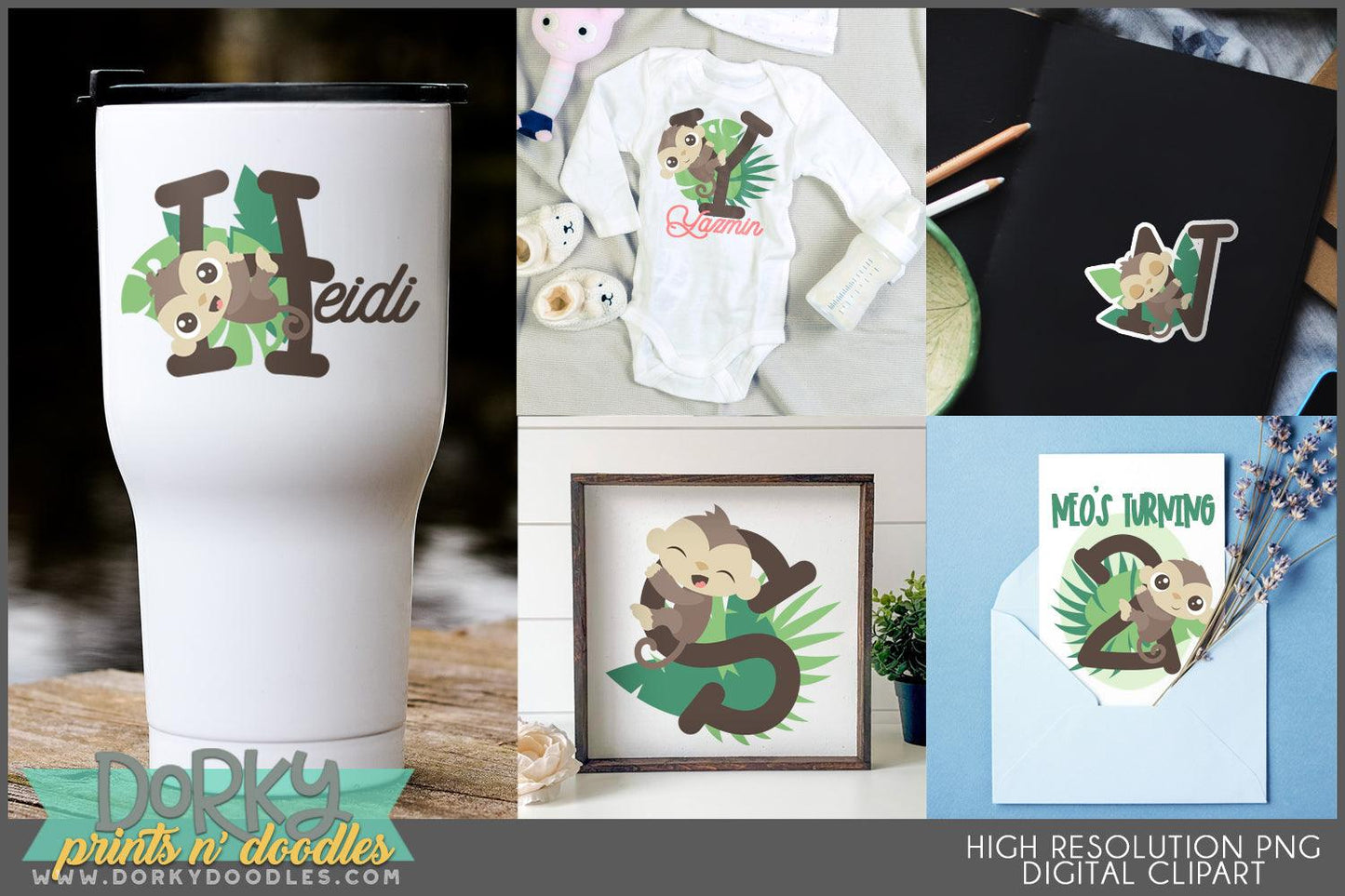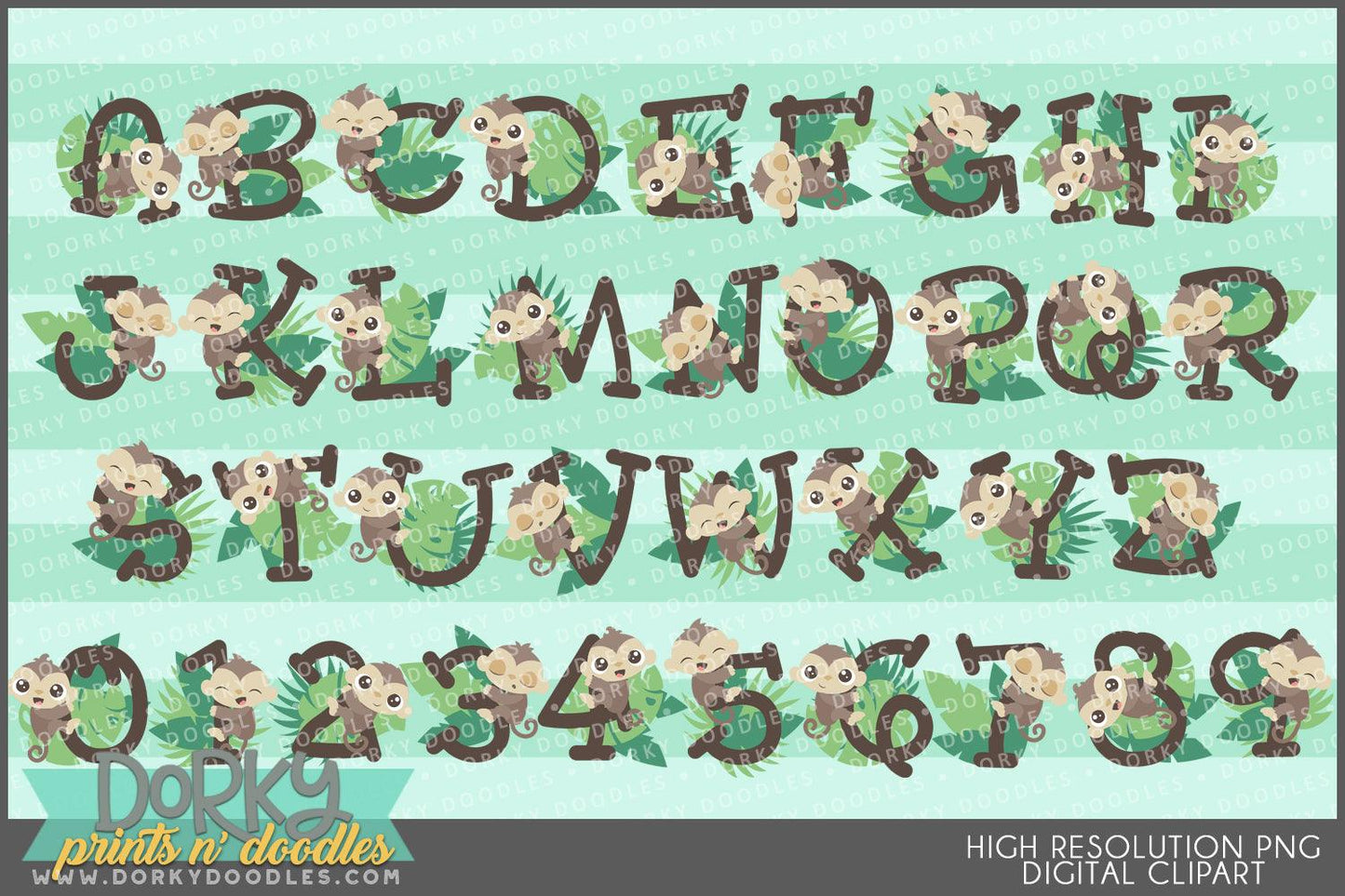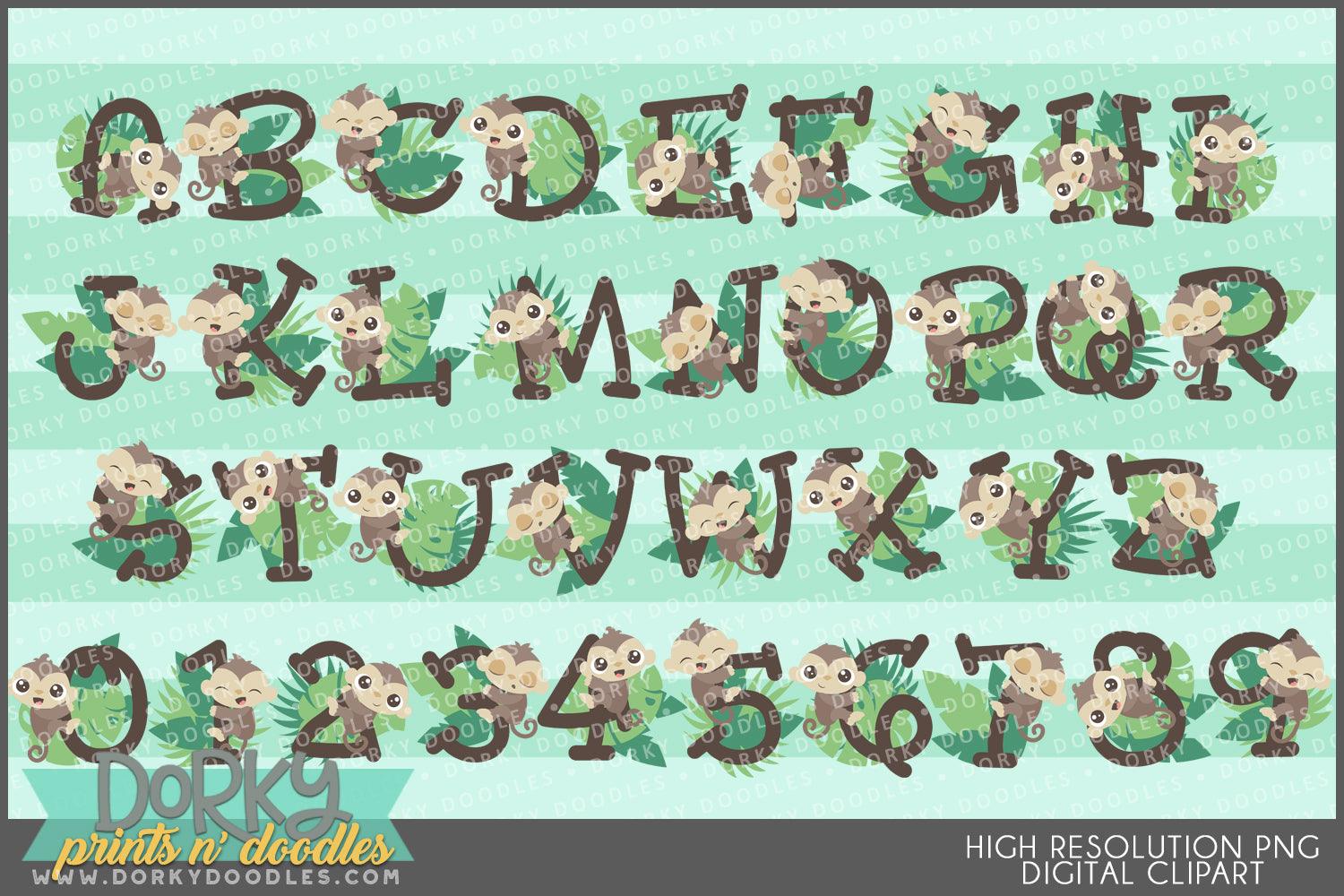
Monkey Alphabet Clipart
These cute monkey letter and number images look fabulous in scrapbooks, party invitations, planners, and home decor! You will get 36 Digital Clip Art images in high resolution PNG format (they come as a ZIP file that you can download instantly once payment has cleared).
• A-Z letters with monkey and leaves
• 0-9 numbers with monkey and leaves